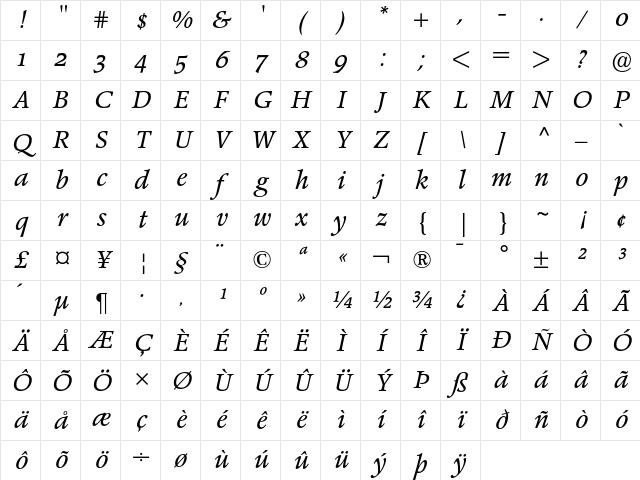
Complete Poppl-Pontifex BE Italic with Oldstyle Figures glyph index. Displaying only characters natively supported by Poppl-Pontifex BE Italic with Oldstyle Figures font.
Poppl-Pontifex BE carries the refined structure of traditional serif typography, with bracketed terminals and considered proportions that communicate credibility and craft. The slanted form adds forward momentum and visual energy.
Pro Tip: Use Poppl-Pontifex BE for editorial body copy and considered headline work. Pair with a neutral sans for UI elements or captions to create a classic hierarchy.